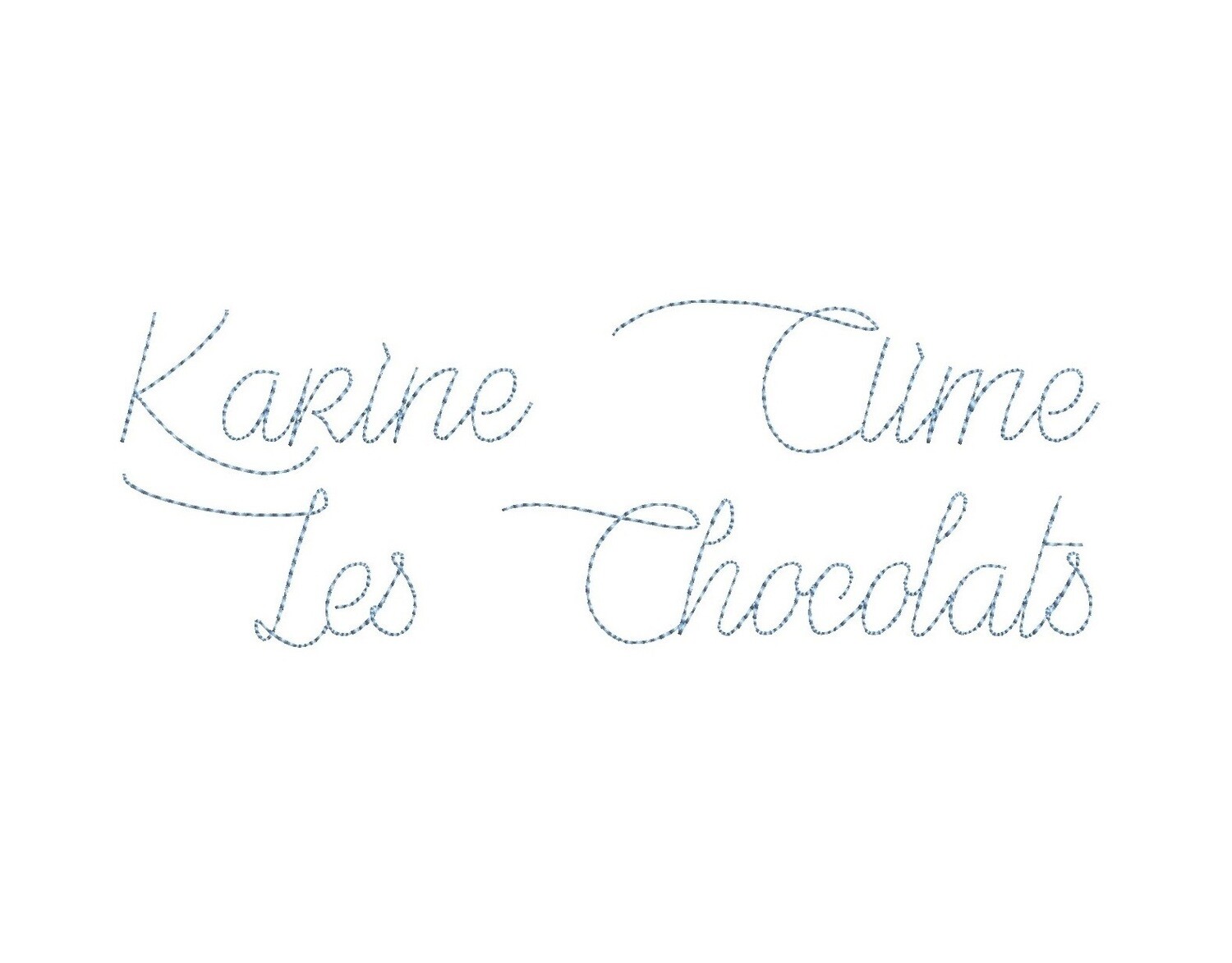
Introducing the delightful Karine Aime Les Chocolats Bean Stitch ESA font - your ultimate digitizing solution compatible with Wilcom Studio e4.5.6 and Hatch 3 versions and up. Embrace the sweetness of this font, inspired by love for chocolates, perfect for various embroidery projects. Its charming bean stitch style adds a touch of joy to apparel, accessories, and home decor. With seamless curves and impeccable lines, the Karine Aime Les Chocolats ESA font guarantees flawless embroidery results. Impress clients and express your creativity effortlessly with this user-friendly font, seamlessly integrating with your preferred software. Satisfy your embroidery cravings - get it now!